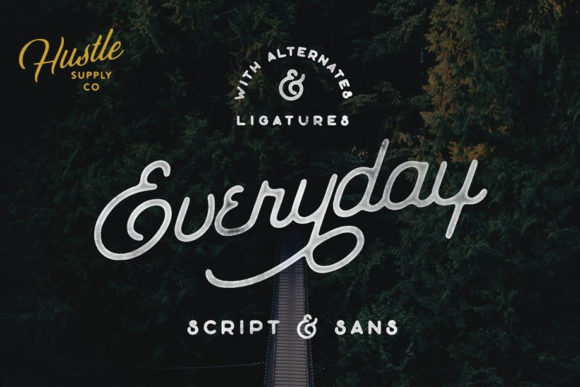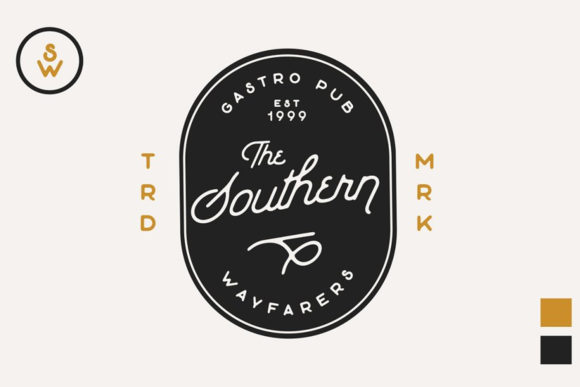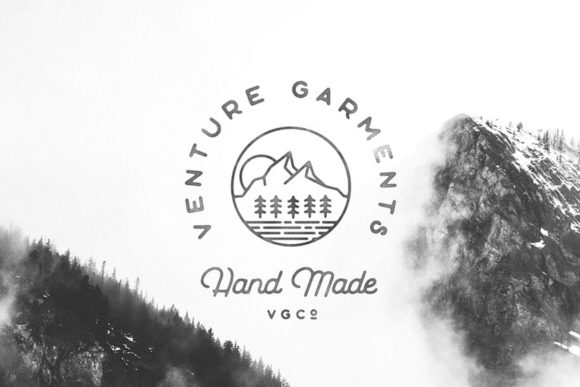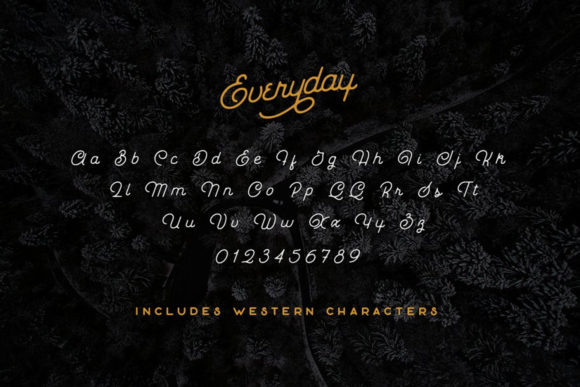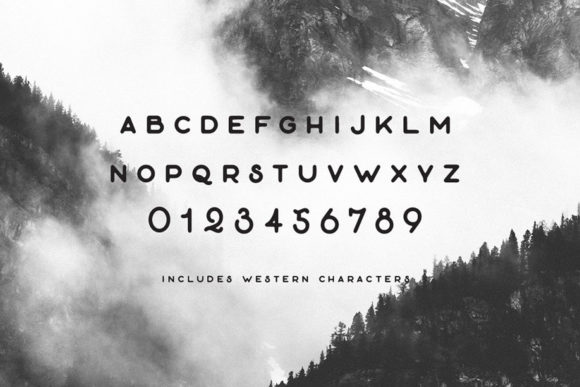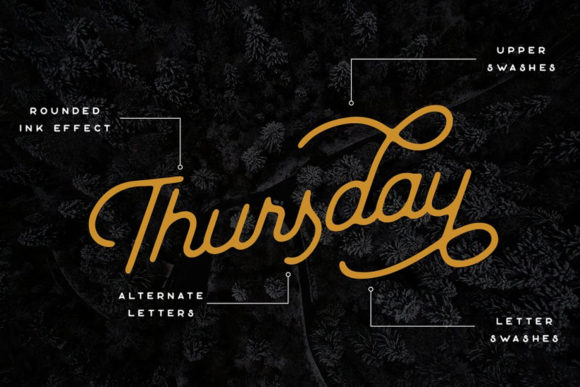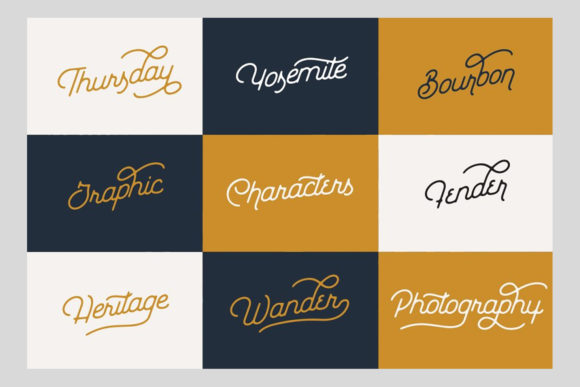
The Everyday Font
About The Everyday Font
The Everyday duo is a match made in heaven. Combining these two fonts on your next design will give it an amazing and elegant feel.